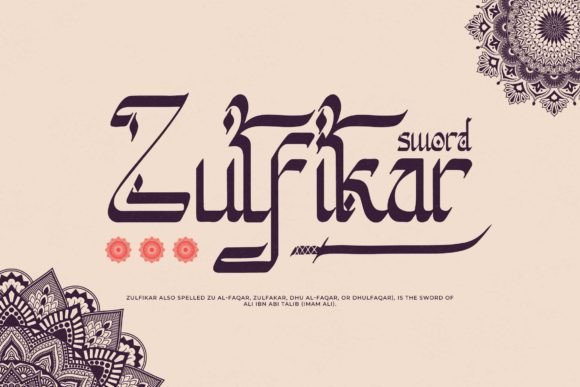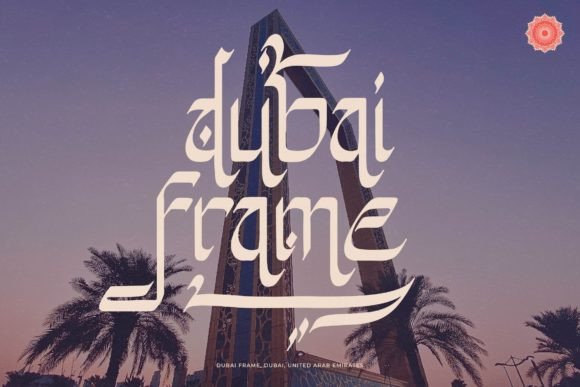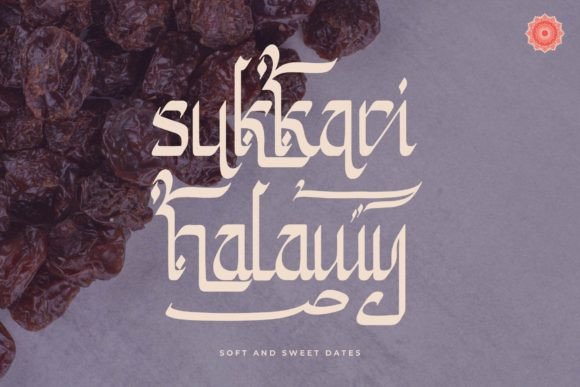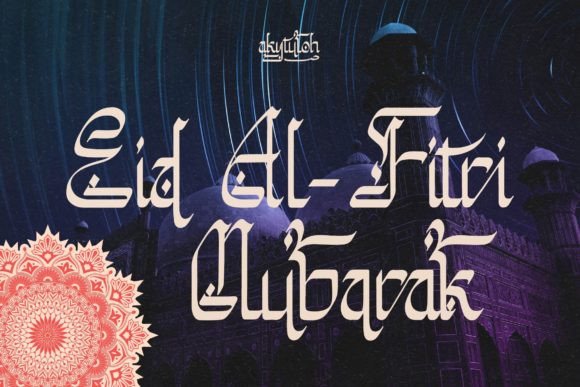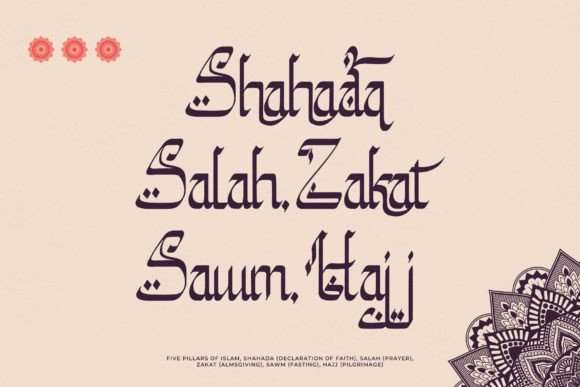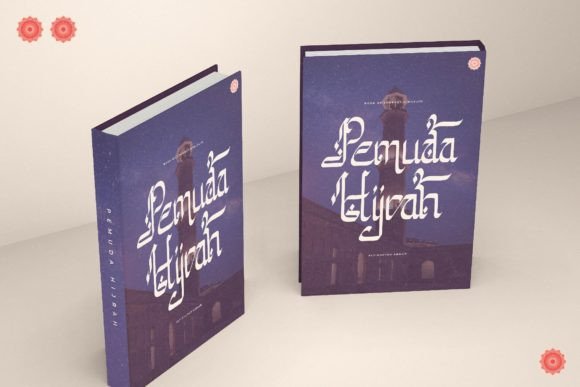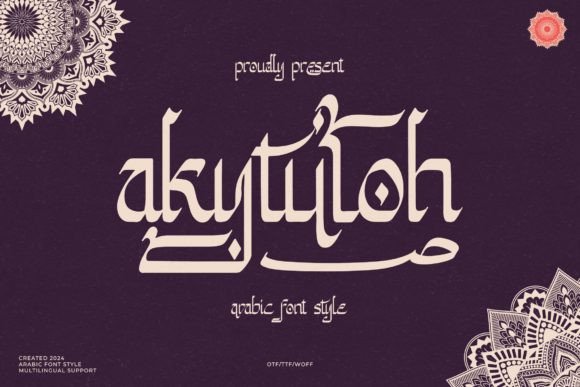
Introducing Akytuloh Font: Elevate Your Designs with Elegant Arabic Flair
In the world of typography, fonts play a crucial role in conveying the tone and aesthetic of a design. For designers and crafters seeking to add a touch of sophistication to their projects, Akytuloh Font is an exceptional choice. This stylish handwritten font, infused with an Arabic flair, offers a unique blend of elegance and refinement.
The Characteristics of Akytuloh Font
Akytuloh Font is distinguished by its flowing, elegant letters that appear to have been carefully written by hand. Each character is crafted with precision, showcasing a beautiful balance of curves and lines. The font’s Arabic influence adds a distinctive charm, setting it apart from more conventional typefaces.
Why Choose Akytuloh Font?
There are several reasons why Akytuloh Font stands out as a top choice for designers and crafters:
- Elegance and Sophistication: Akytuloh Font brings a level of sophistication to any design, making it perfect for projects that require a touch of luxury or refinement.
- Versatility: This font is highly versatile and can be used across various design applications, from branding and advertising to packaging and digital media.
- Unique Aesthetic: The Arabic flair in Akytuloh Font provides a distinctive look that can help your designs stand out in a crowded marketplace.
- Handwritten Charm: The font’s handwritten nature adds a personal touch to your designs, making them more relatable and engaging.
Applications of Akytuloh Font
Akytuloh Font’s versatility makes it suitable for a wide range of design projects, including:
- Branding and Logo Design: Create a lasting impression with a unique and elegant logo that reflects your brand’s personality.
- Stationery and Packaging: Elevate your stationery, business cards, and product packaging with a sophisticated and eye-catching font.
- Digital Media: Use Akytuloh Font in your website designs, social media graphics, and digital advertisements to add a touch of elegance and refinement.
- Crafting and DIY Projects: Perfect for crafters, Akytuloh Font can be used in various DIY projects, such as handmade cards, scrapbooking, and journaling.
Tips for Using Akytuloh Font Effectively
To get the most out of Akytuloh Font, consider the following tips:
- Pair with Complementary Fonts: Combine Akytuloh Font with complementary fonts to create visual interest and hierarchy in your designs.
- Experiment with Colors: Take advantage of the font’s elegance by pairing it with a range of colors that enhance its beauty.
- Pay Attention to Spacing: Ensure that your text is easily readable by adjusting the spacing between letters and lines.
Akytuloh Font is a stunning handwritten font that brings a touch of Arabic elegance to your designs. Its unique aesthetic, versatility, and sophistication make it an excellent choice for designers and crafters seeking to elevate their projects. Whether you’re working on branding, packaging, digital media, or crafting, Akytuloh Font is sure to make a lasting impression.
Discover the beauty of Akytuloh Font and take your designs to the next level with its refined and elegant charm.